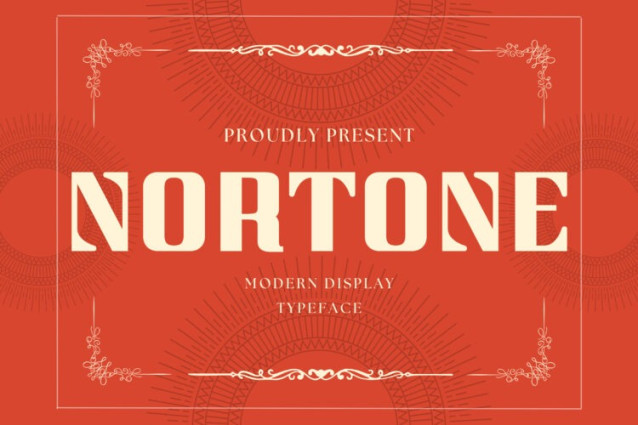
Nortone Font
Nortone Font is a modern and simple font with more unique ligatures, best used as a display for headings, logos, branding, magazines, product packaging and invitations.